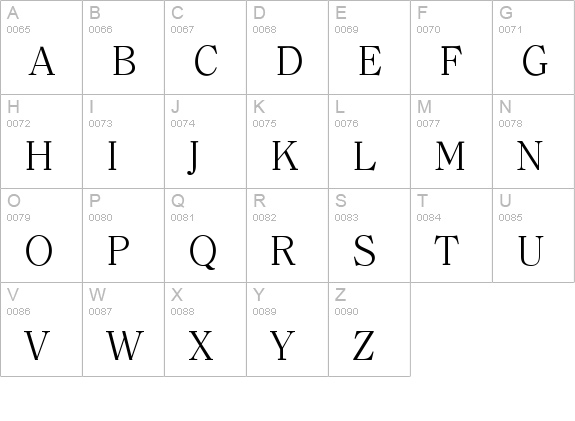
Clerface-Light is a refined, elegant variant in the Clerface typeface family \xE2\x80\x94 well suited to elegant body text, refined sub-headings, and luxury branding.
Clerface-Light is a sleek and modern font that exudes elegance and sophistication. With its clean lines and subtle curves, this font is perfect for adding a touch of class to any design project. The light weight of the font gives it a delicate and airy feel, making it ideal for use in headers, titles, and other display text. Best of all, Clerface-Light is available for free download at FontsMarket.com. This means you can add this stylish font to your collection without breaking the bank. Whether you're working on a personal project or a professional design, Clerface-Light is sure to elevate your work and leave a lasting impression on viewers. Download it today and start creating beautiful designs with this versatile and elegant font.